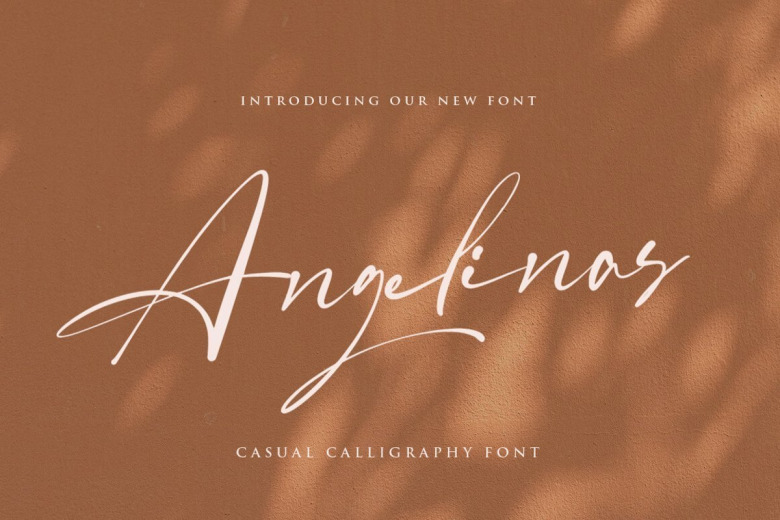
Angelinas Font
Angelinas Script Font is modern & luxury signature font with perfect flow and natural handwriting. It is perfect for branding, wedding invites and cards, and maybe for red wine label.
Angelinas includes uppercase and lowercase letters, numerals, and beautiful ligatures, that makes the font look fabulous for any projects!